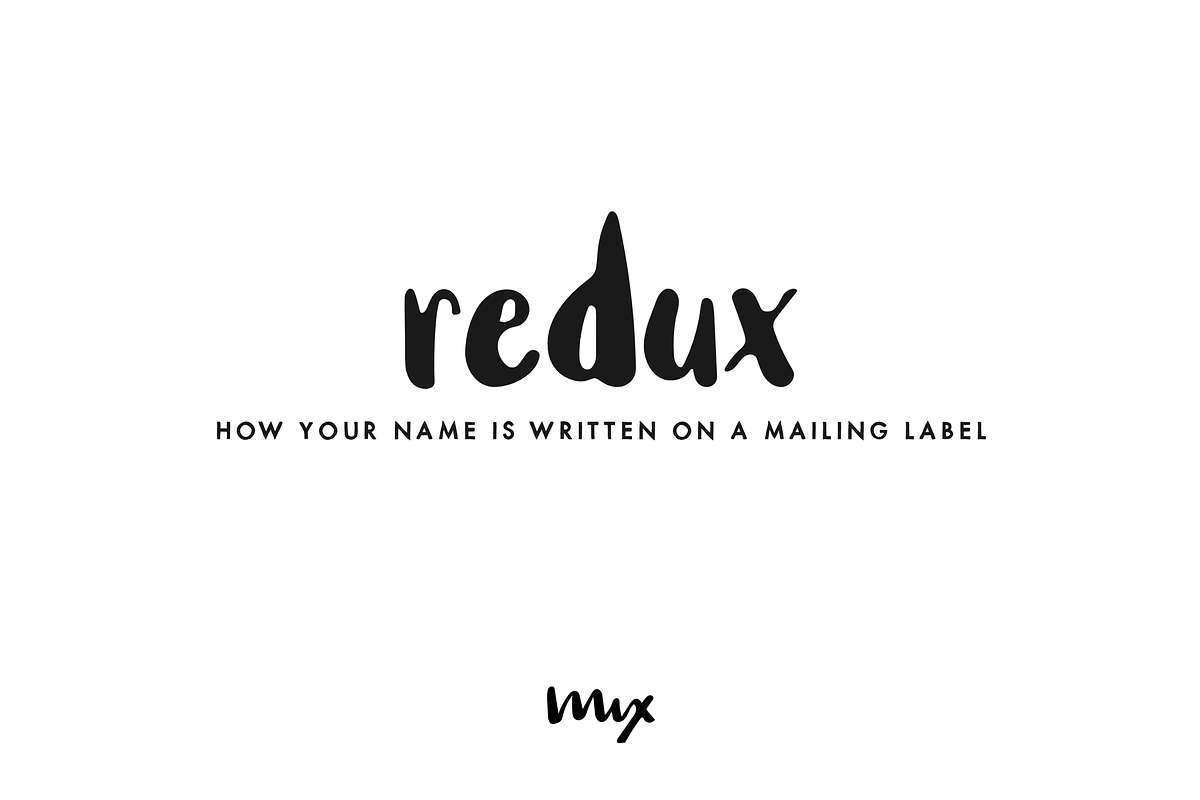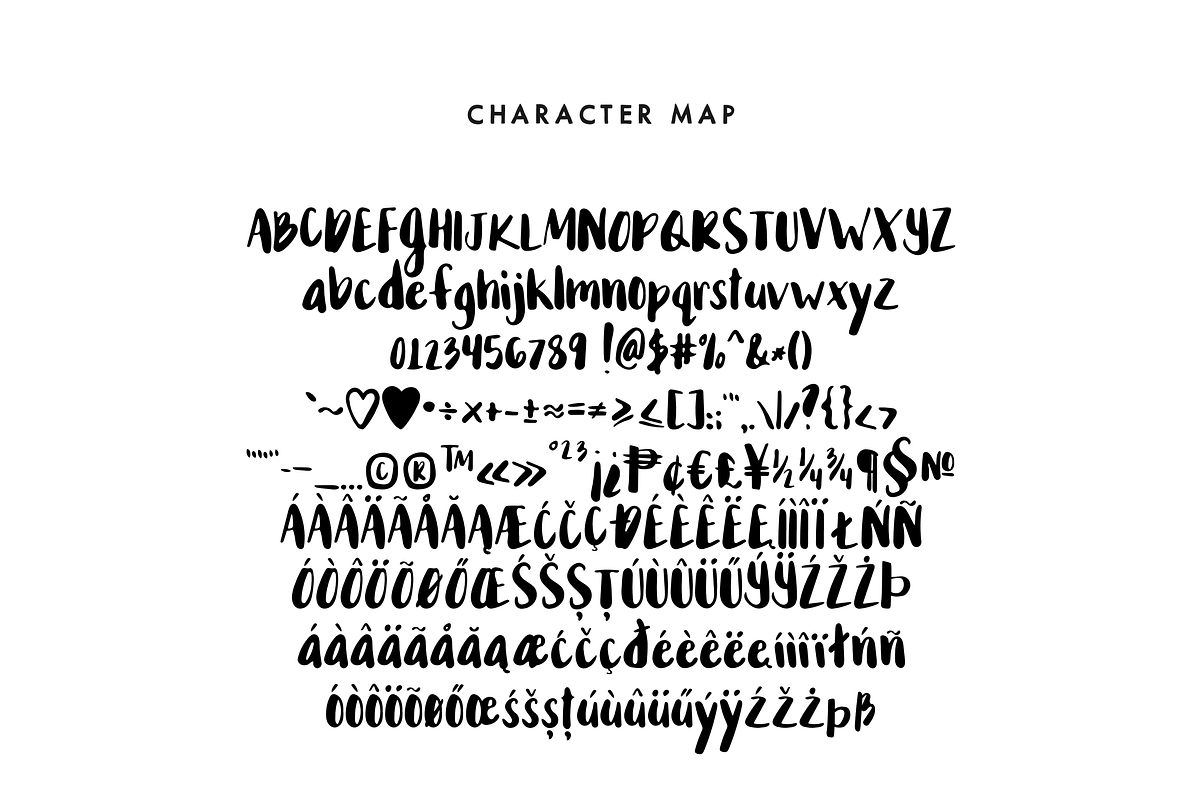
Redux — A Handwritten Font
Redux — A Handwritten Font by Mix Fonts is a font selected for branding, posters, packaging, typography.
- With multilingual support and extended alphabet and accented characters, Mix Redux is versatile enough to be used in a wide range of design
Why Redux — A Handwritten Font is worth a look
Redux — A Handwritten Font by Mix Fonts fits naturally into Branding, posters, packaging, typography.